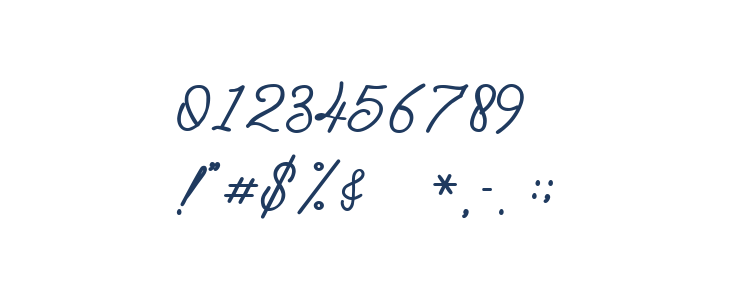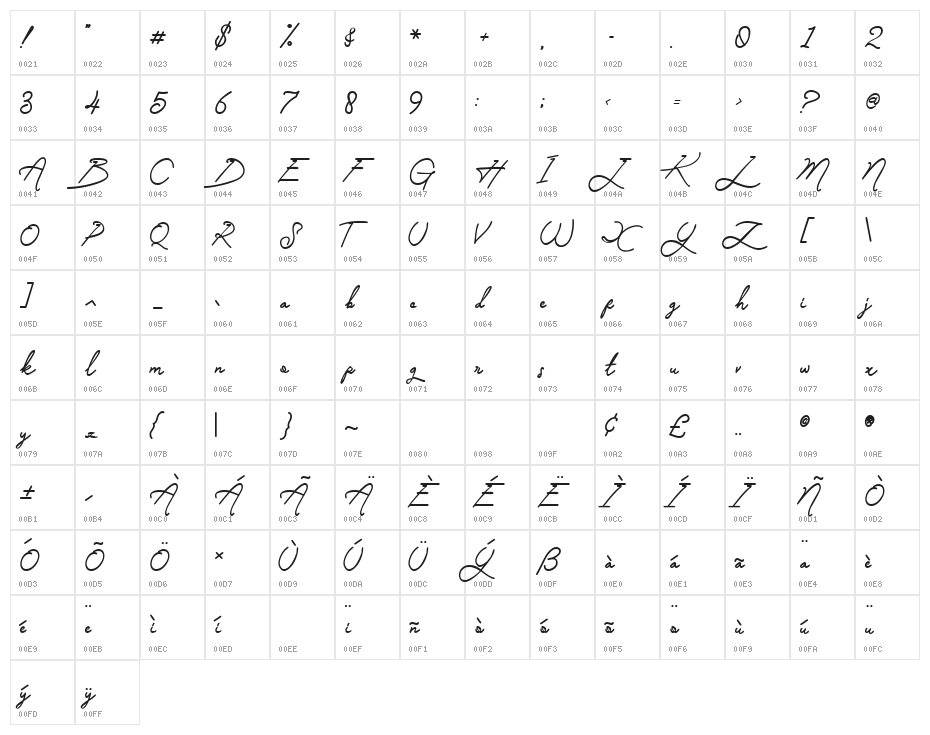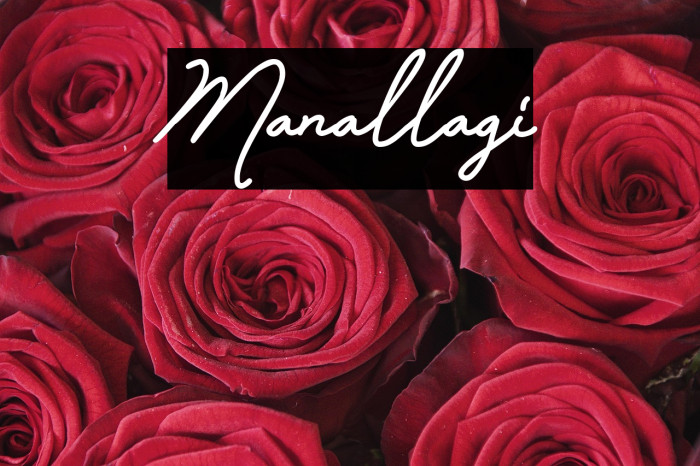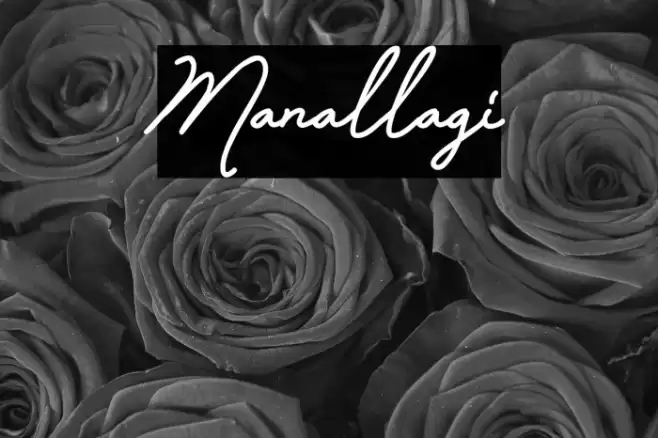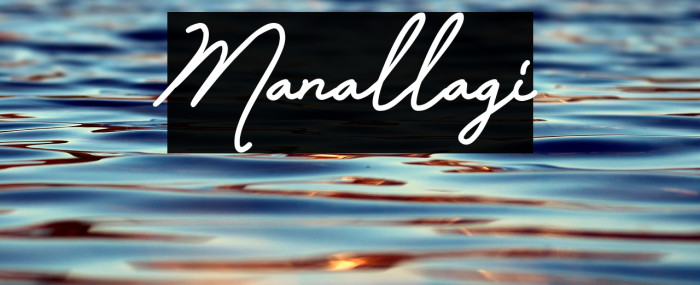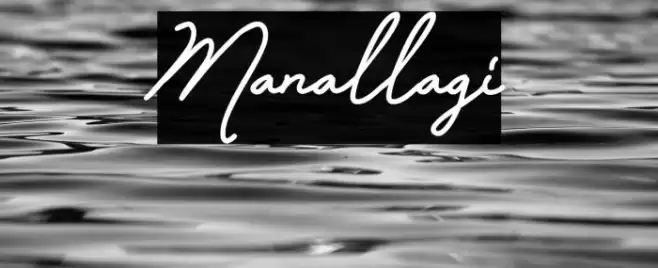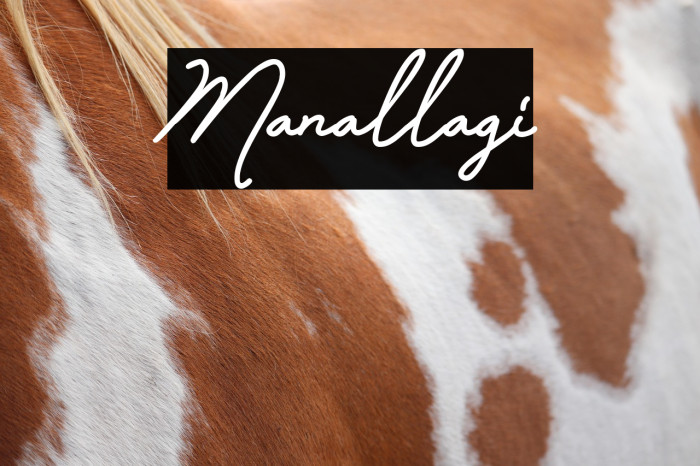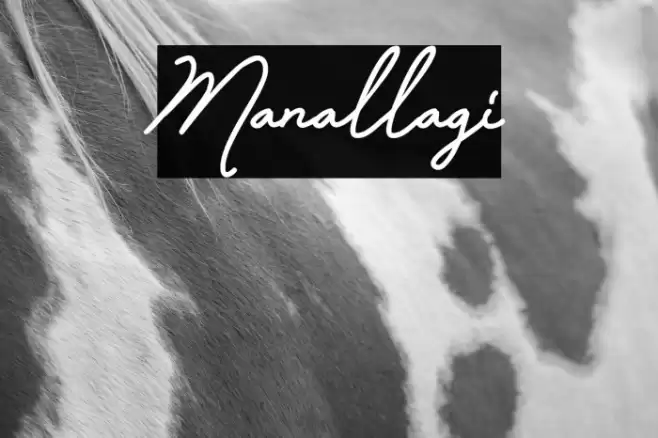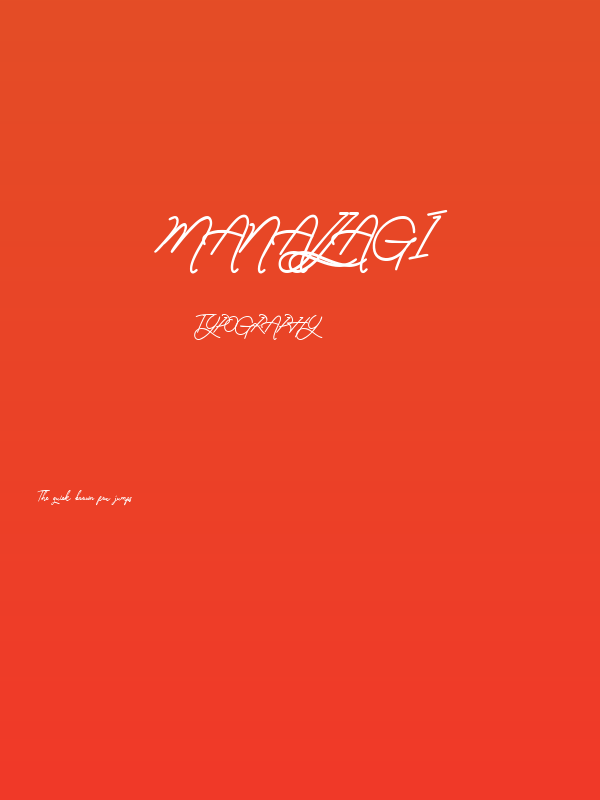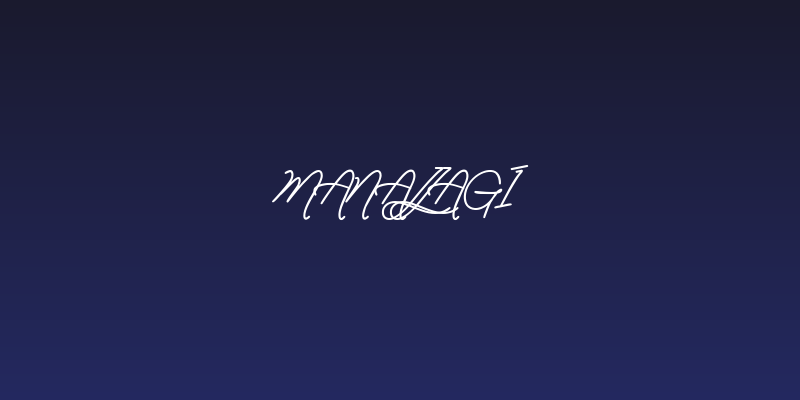
Manallagi Font
Manallagi Description
This font features a dynamic and fluid script style, characterized by its elegant and flowing letterforms. The uppercase letters are bold and expressive, with sweeping curves and a sense of movement. The lowercase letters maintain a consistent style, with smooth connections and a handwritten appearance. The numerals are clear and legible, complementing the overall script aesthetic. Special characters are integrated seamlessly, adding versatility to the font. This font exudes a sense of sophistication and creativity, making it suitable for various design applications.
| Overall Style | Elegant, Creative |
| Proposed Projects | Ideal for wedding invitations, greeting cards, branding projects, and elegant packaging designs. |